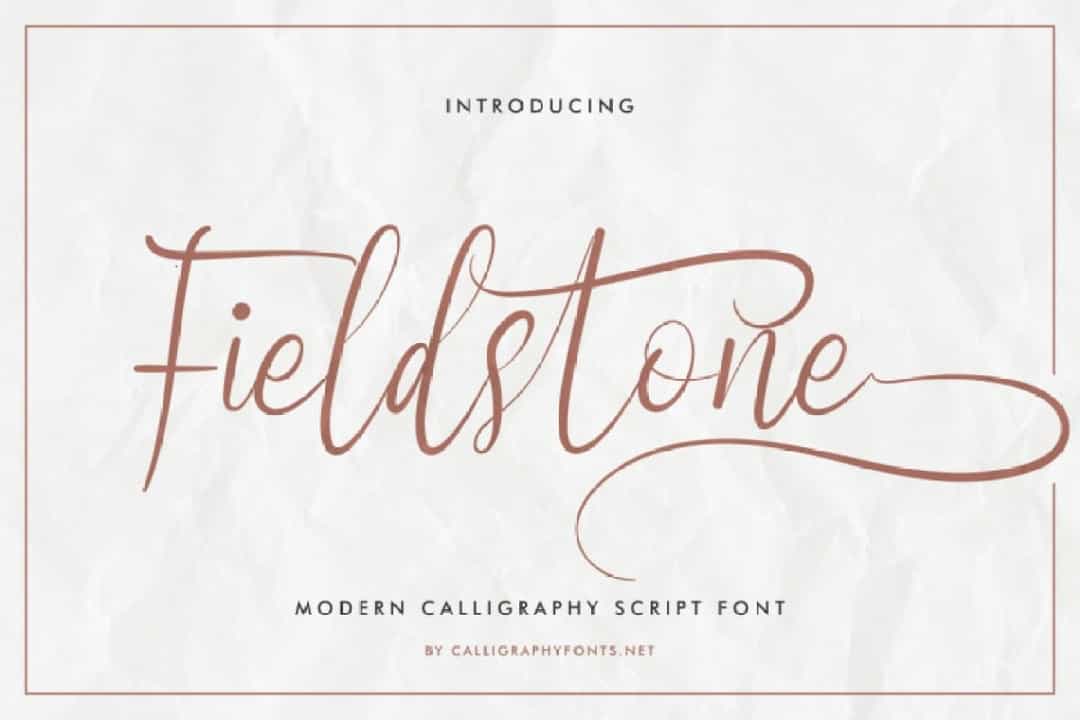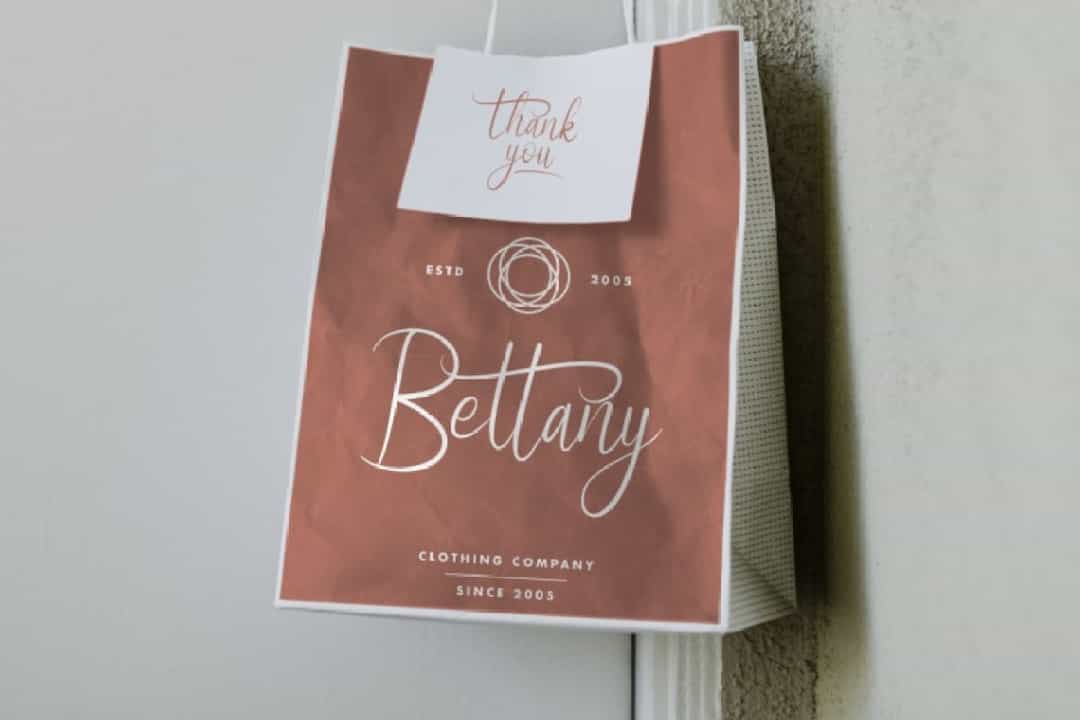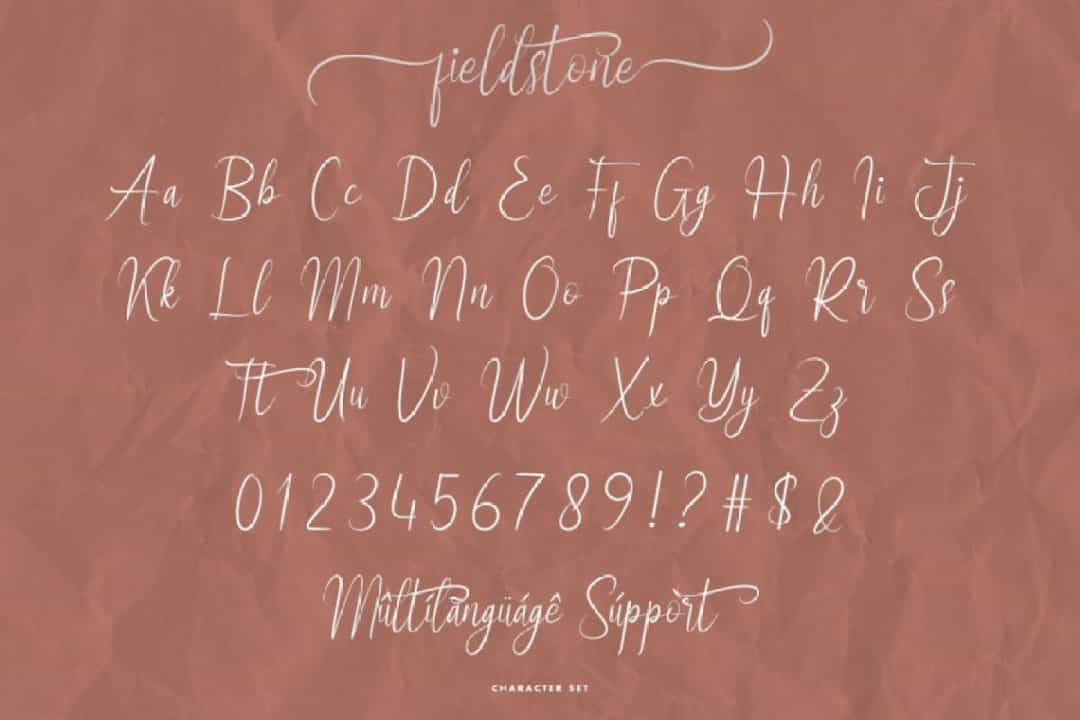
Fieldstone is a calligraphic font and is a brush type. It offers beautiful and sophisticated designs with simple and luxurious looks and characteristics and traditional paint.